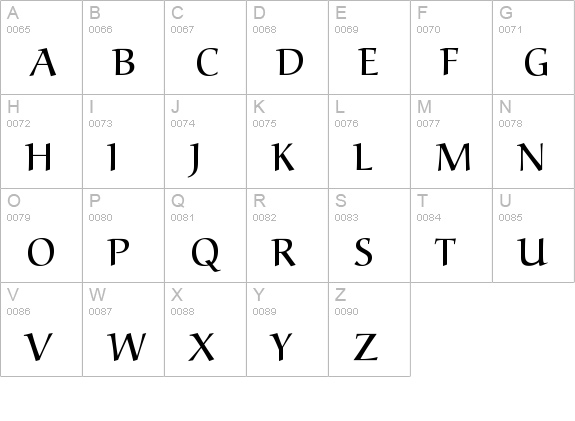
AlcuinEF-Regular is the standard, neutral variant in the AlcuinEF typeface family \xE2\x80\x94 well suited to general body text, paragraphs, and standard typographic work.
AlcuinEF-Regular is a versatile and elegant font that exudes sophistication and charm. With its clean lines and classic proportions, this typeface is perfect for a wide range of design projects, from branding to editorial work. Its timeless appeal makes it a popular choice for both print and digital applications. What sets AlcuinEF-Regular apart is not just its aesthetic appeal, but also its accessibility. This font is available for free download at FontsMarket.com, allowing designers and creatives to easily incorporate it into their projects without any cost. Whether you're designing a logo, creating a poster, or working on a website, AlcuinEF-Regular is a reliable and stylish choice that won't break the bank. Download it today and elevate your designs with this beautiful typeface.